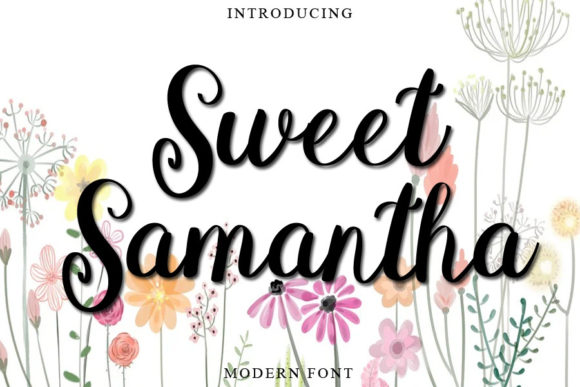
Welcome and behold, dear seekers of distinction, to the realm of calligraphy's finest offerings – the hallowed grounds where elegance meets innovation, where ink flows like liquid eloquence, shaping your creative visions into tangible masterpieces. Allow me to guide you through the enchanting realm of Sweet Samantha, an ethereal script font that will redefine your perception of design prowess.
Meet Sweet Samantha, the embodiment of grace and sophistication, a font meticulously crafted to infuse your words with a touch of allure and an aura of understated luxury. Its fluid strokes dance across the page, evoking the artistry of handwritten notes penned with heartfelt sincerity, capturing the essence of timeless elegance in every letterform.
Unleash your imagination and watch as Sweet Samantha transforms your designs into captivating works of art. Let your creativity soar as you craft business memos that radiate professionalism and poise, leaving a lasting impression that lingers long after the final stroke has been written. The flowing lines and delicate curves of this font add a touch of refinement to any project, whether it's a heartwarming wedding invitation or a captivating YouTube banner.
Sweet Samantha is more than just a font; it's a versatile tool that empowers you to weave narratives and paint pictures with every word you type. Its versatility extends beyond the realm of formal correspondence, effortlessly adapting to the vibrant world of crafting and the bold expressions of fliers. It's the perfect companion for expressing your individuality and making a statement that resonates with your audience.
But what truly sets Sweet Samantha apart is its remarkable ability to elevate your designs to new heights. This font isn't merely a visual adornment; it's a transformative force that breathes life into your creations. With Sweet Samantha at your fingertips, you'll find yourself immersed in a world of limitless possibilities, discovering hidden depths of creativity you never knew existed.
So, whether you're a seasoned designer seeking to elevate your work or an aspiring artist yearning to leave your mark on the world, Sweet Samantha is your muse, your guiding light in the vast expanse of digital expression. Embrace its beauty, harness its power, and embark on a creative journey that will leave you spellbound and craving more.
Sweet Samantha, a font that speaks to the heart, a font that captivates the eye, a font that transforms the ordinary into the extraordinary. It's more than just a font; it's an experience, an adventure that will redefine your creative horizons. Embrace it, and let your imagination run wild.